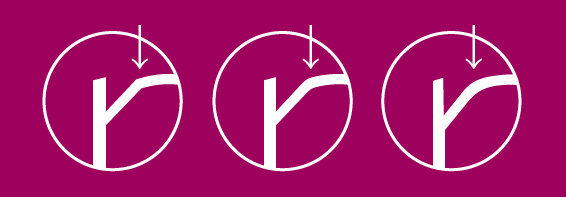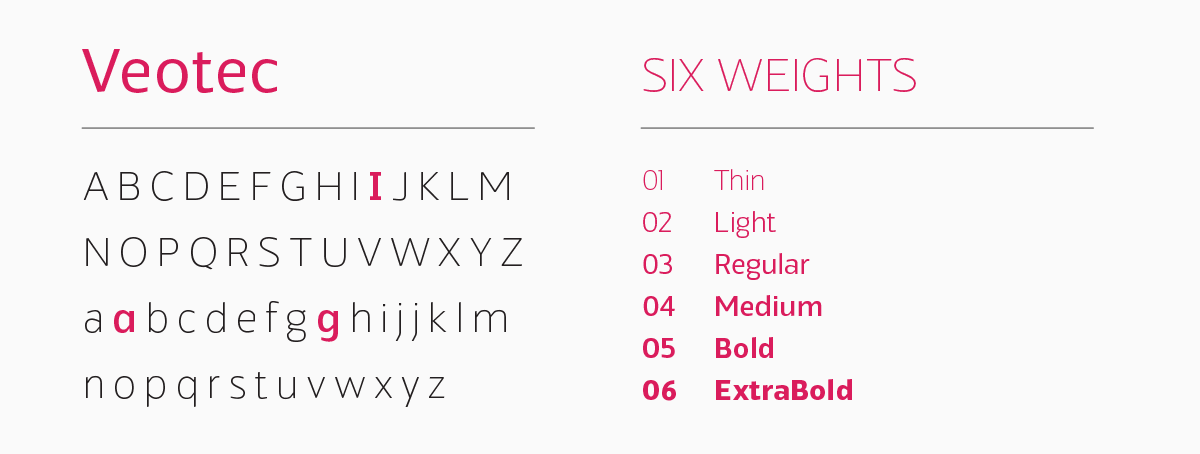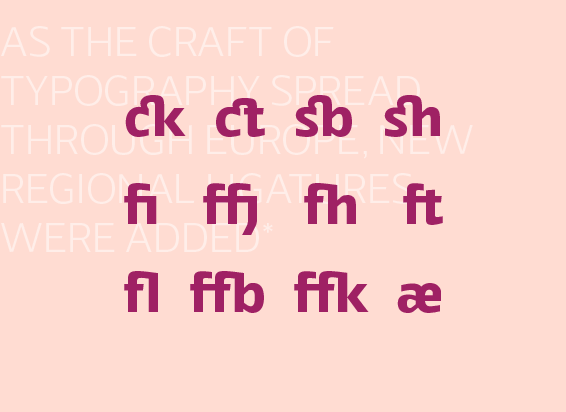
Someone mentioned in a comment that they would love to hear more about Veotec. Well, here it is, the full story on how I created Veotec and what the methodical approach involved.
Veotec is my second typeface I created and published with The Northern Block type foundry. It was my aim to produce something that people were interested in and something that people needed.
I knew I wanted to create something legible & functional, so started researching into what type classification would do a good job at this. I discovered that the humanist classification was often very legible due to its open forms. I worked on this as a basis for my sketches and initial designs.
I always start the design process on paper and I often find drawing something over and over again, often develops into something very different.
Through designing my previous typeface, I knew that very heavy weights often compromise slightly on legibility due to loosing some of the negative space around the joins. From this it gave me the idea of increasing the negative space in the lighter weights in turn giving me more negative space in the heavier weights allowing a more open feel.
I continued sketching designs to see how characters would look with more negative space, achieving this by increasing the angle of the joins. I ended up with very sharp steep angles.
When creating Veotec on the computer, the angles were softened just enough to still give a sharp feel but without looking like a display typeface.
I decided against serifs so that it would be more legible on screen, I didn't want too much distraction that became pixelated on screen and at small sizes. Simplicity is key. To give this typeface style without the distraction, I implemented the idea of taking away from characters instead of adding, giving even more negative space. I sharpened edges and cropped parts of the letters giving slanted endings & a technical feel which also gave a more dramatic feel at larger sizes.
Rounded curves were added to balance the sharp curves and create a bit of contrast, in turn creating a great looking typeface that was functional.
A lot of testing was involved to get the characters right; printing at a range of weights and sizes and testing on screen.
To give the typeface more uses and allow the user to give their project more personality I offered a good range of weights and alternative characters.
Ligatures were important to help the visual flow of text in longer copy so I made a good range of ligatures. In total there is 27.
I won't miss out the importance to kerning and spacing! This was a huge part of creating Veotec and always will be with my fonts. Thousands of kerning pairs were implemented, so there can be a huge variety of possible combinations of letters, symbols and numbers that sit together nicely and look well designed.